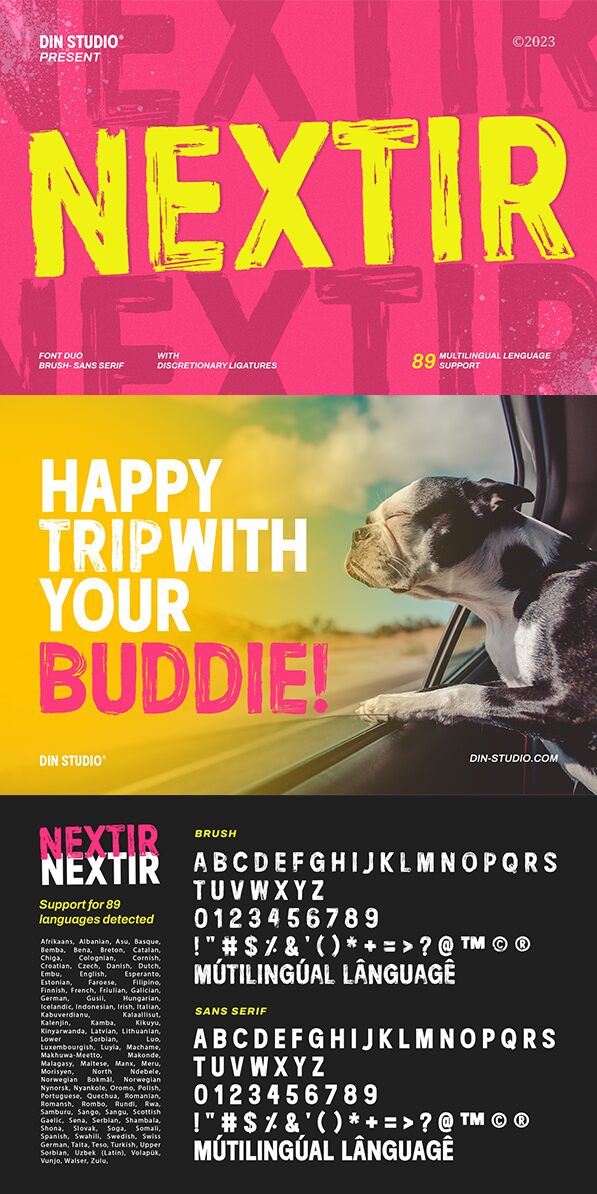
Nextir Brush font from Ditatype is a free brush font astounding with a grunge texture and distressed appearance. Its letters are created in bold weight, they attain an artistic vibe where they express a handcrafted look bound to amaze audiences. Use in the right projects, Nextir Brush can shine like no other typeface.
Incorporate the expressive feel of this script font in logotypes, product packaging designs, poster headings, branding and identity ideas, book covers, or magazine covers. And use it to add exclusivity and freshness to menu designs for restaurants or small diners.